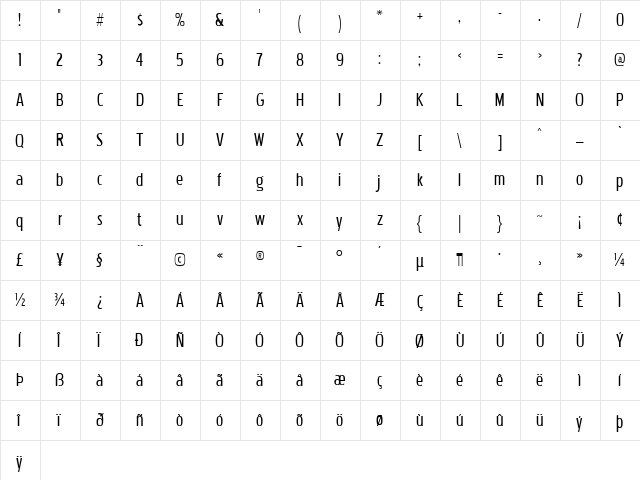
Pakenham Cnd Regular
Design Context for Pakenham Cnd Typeface
Pakenham Cnd is a composed and adaptable typeface that performs quietly and consistently across a wide range of design contexts.